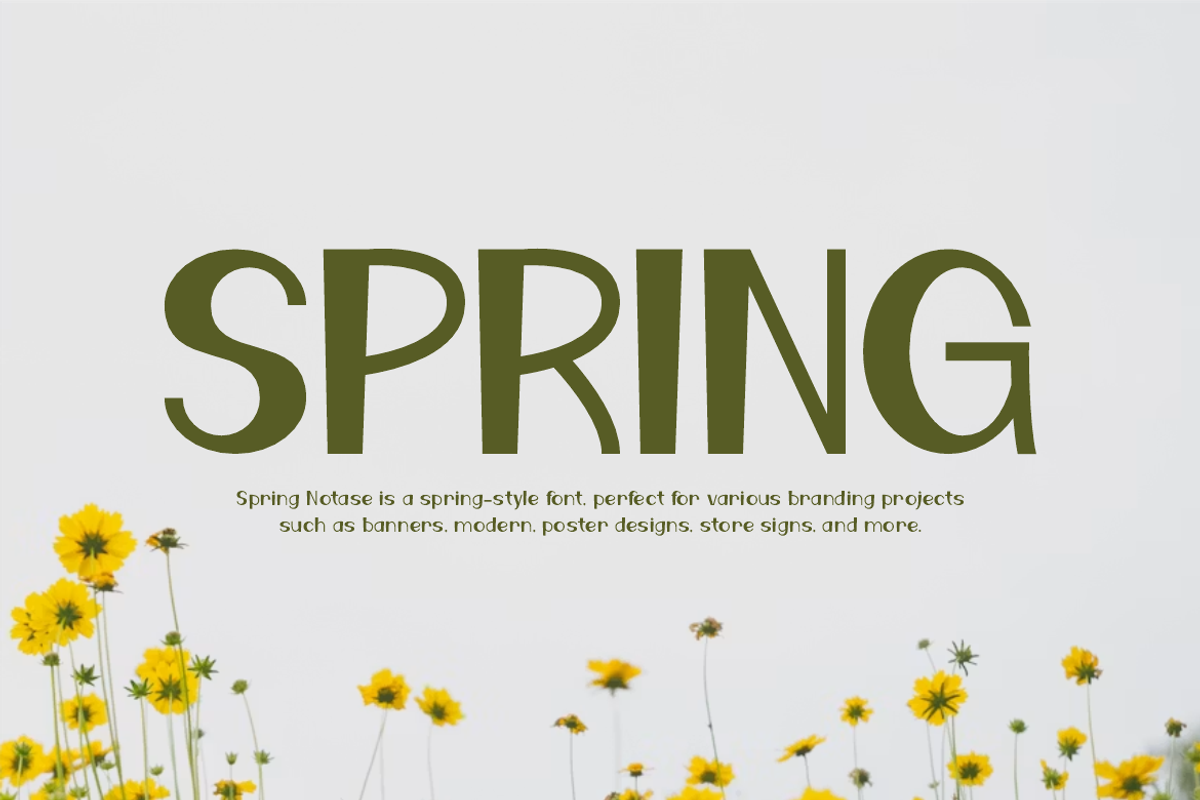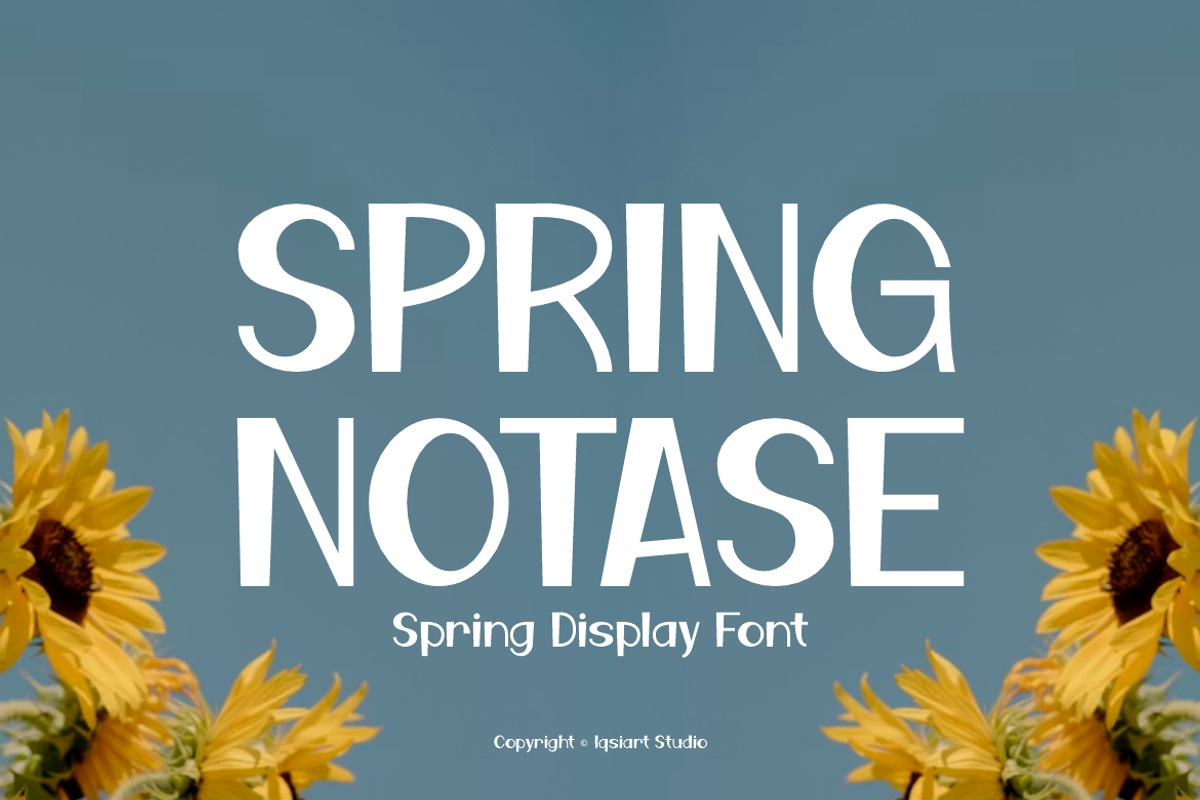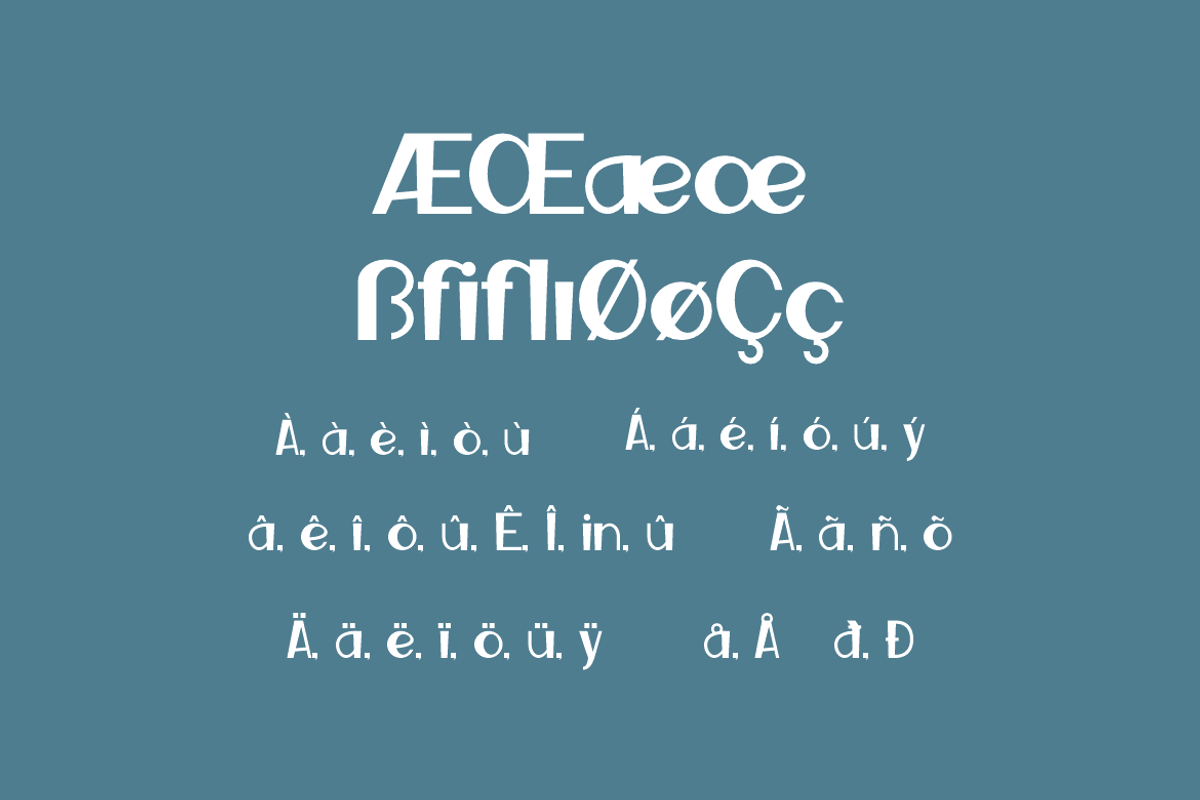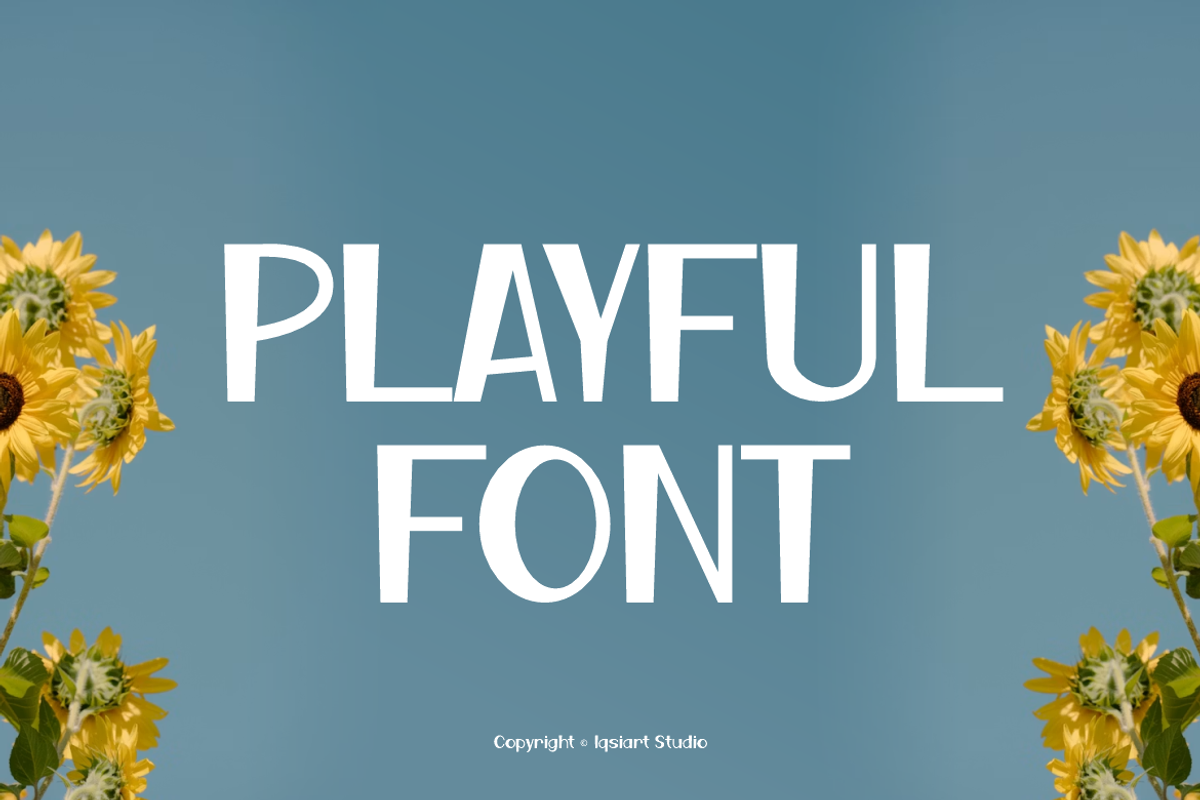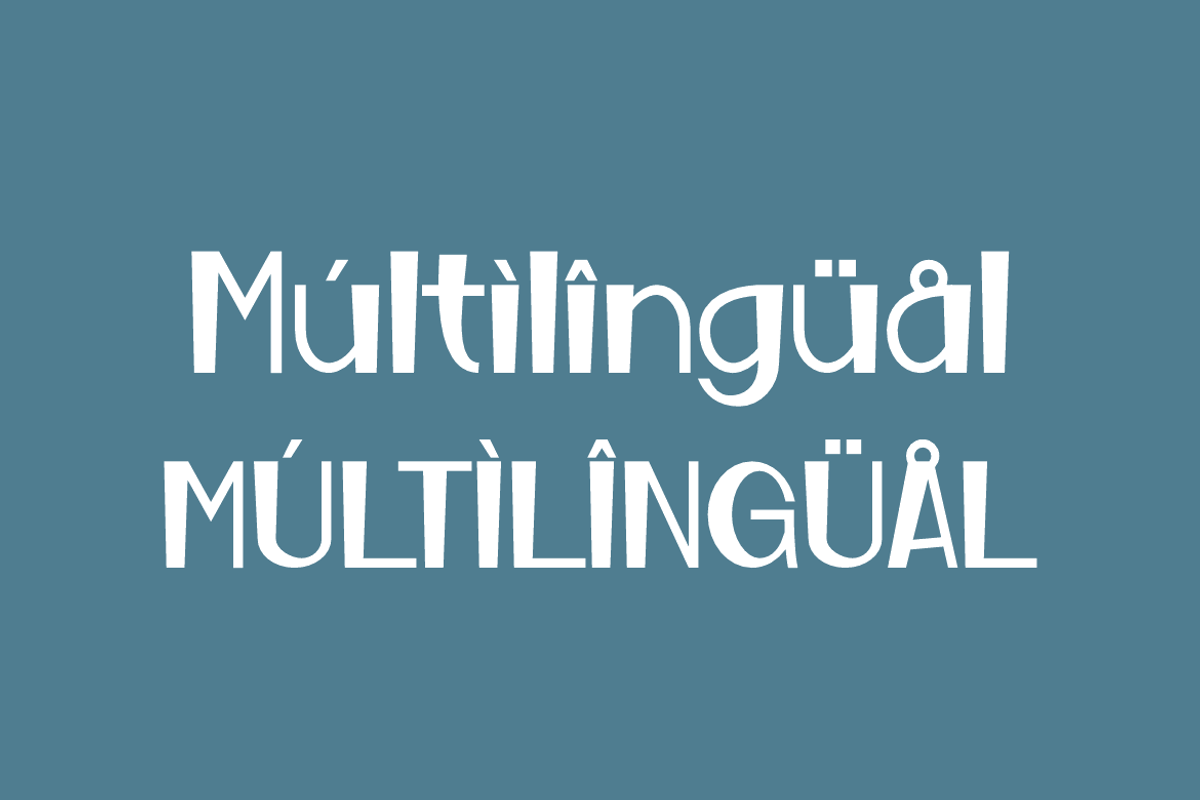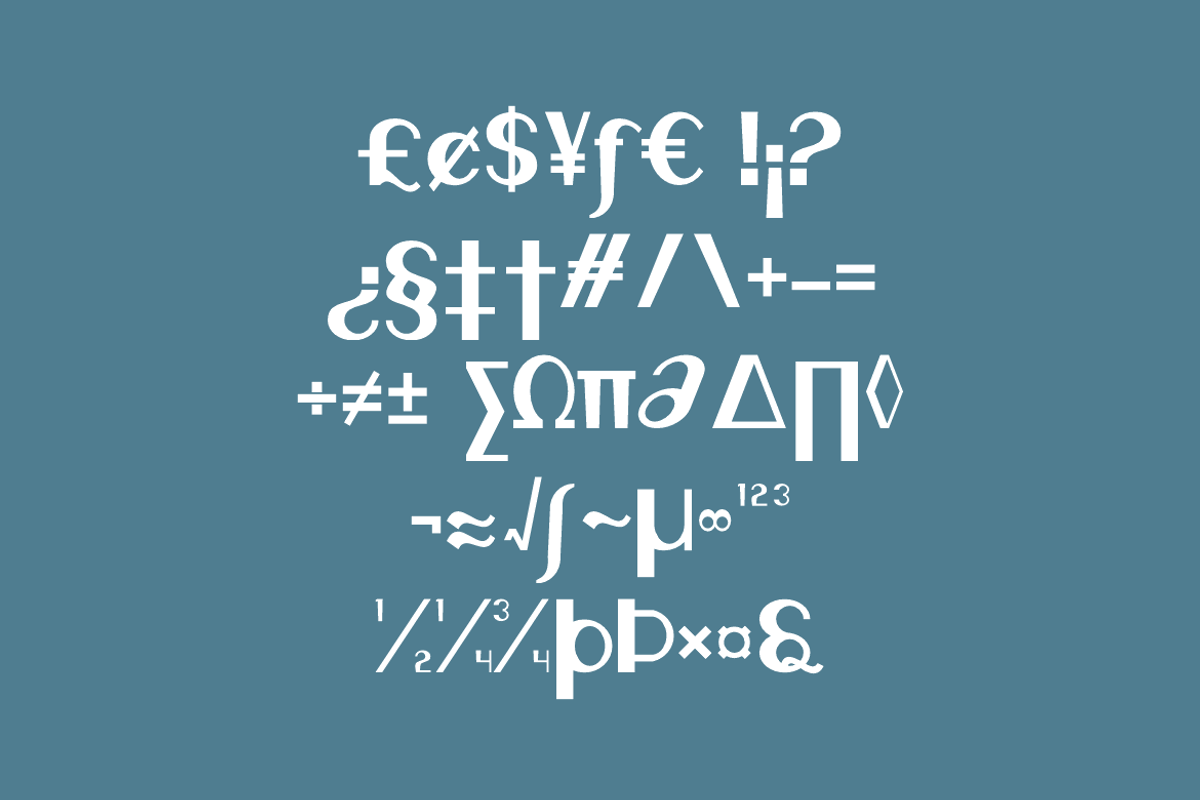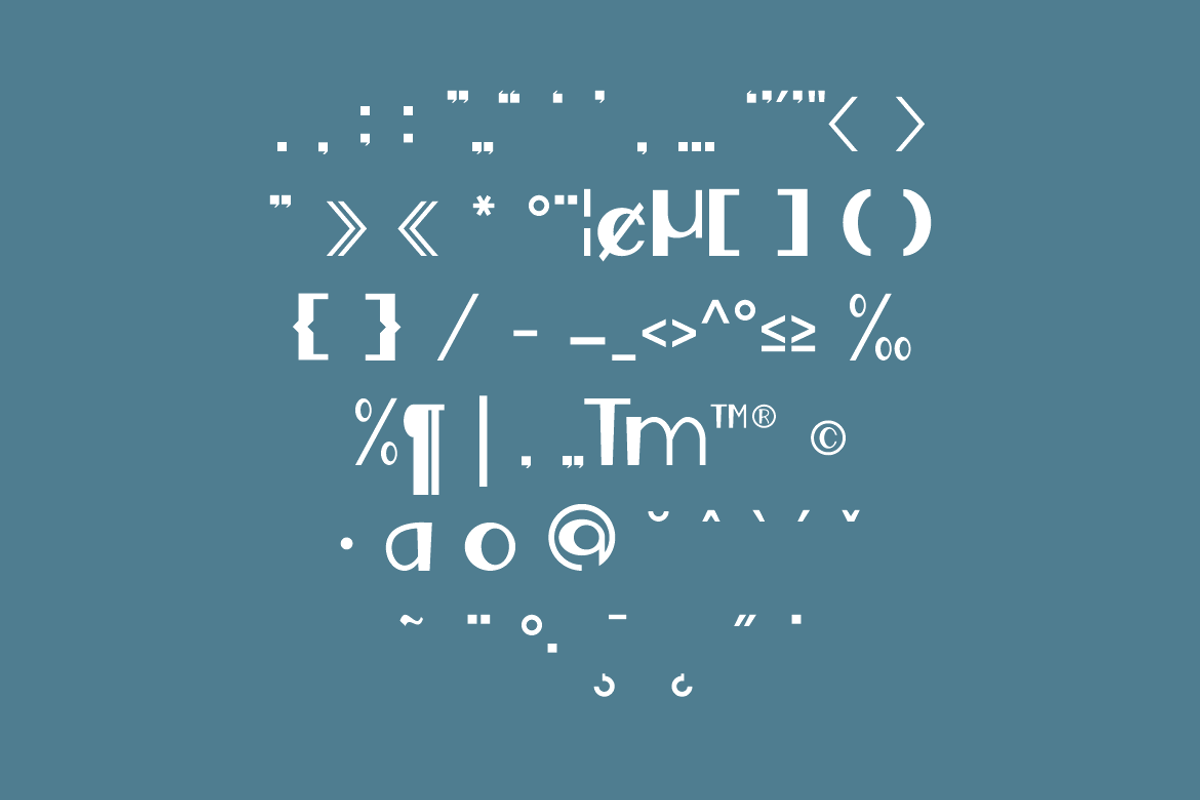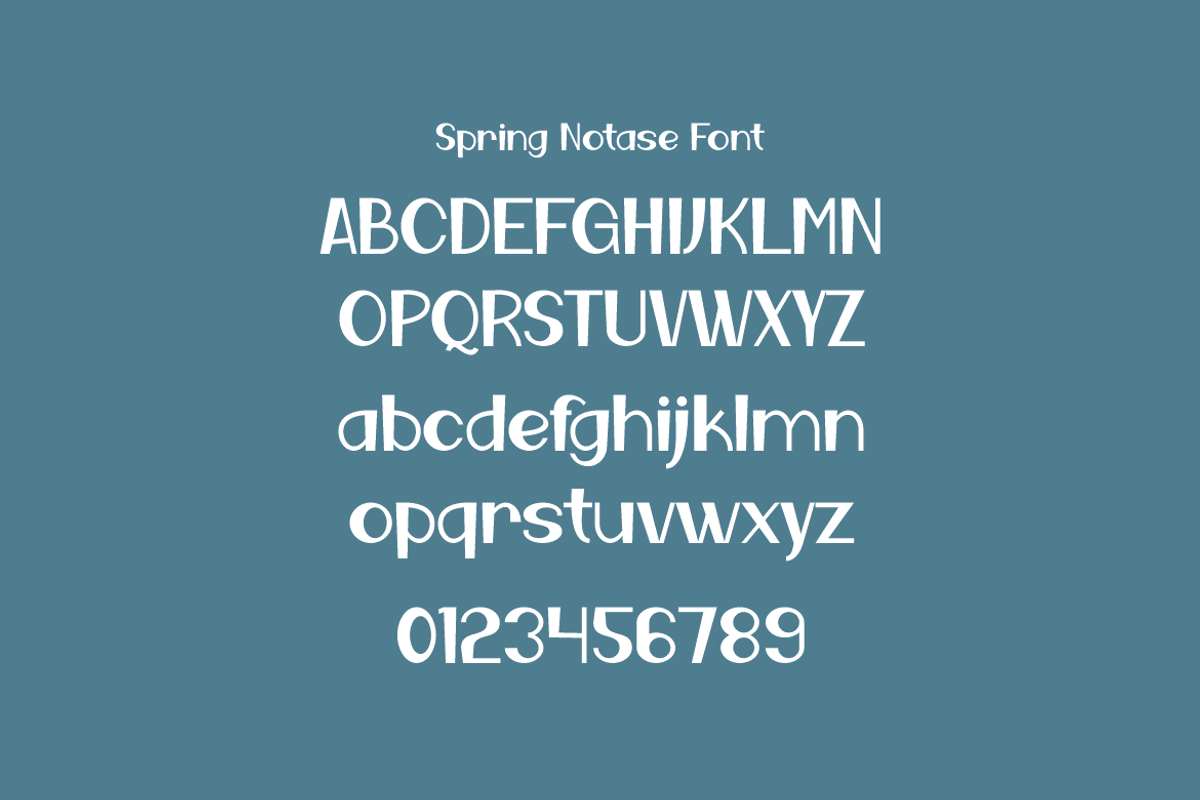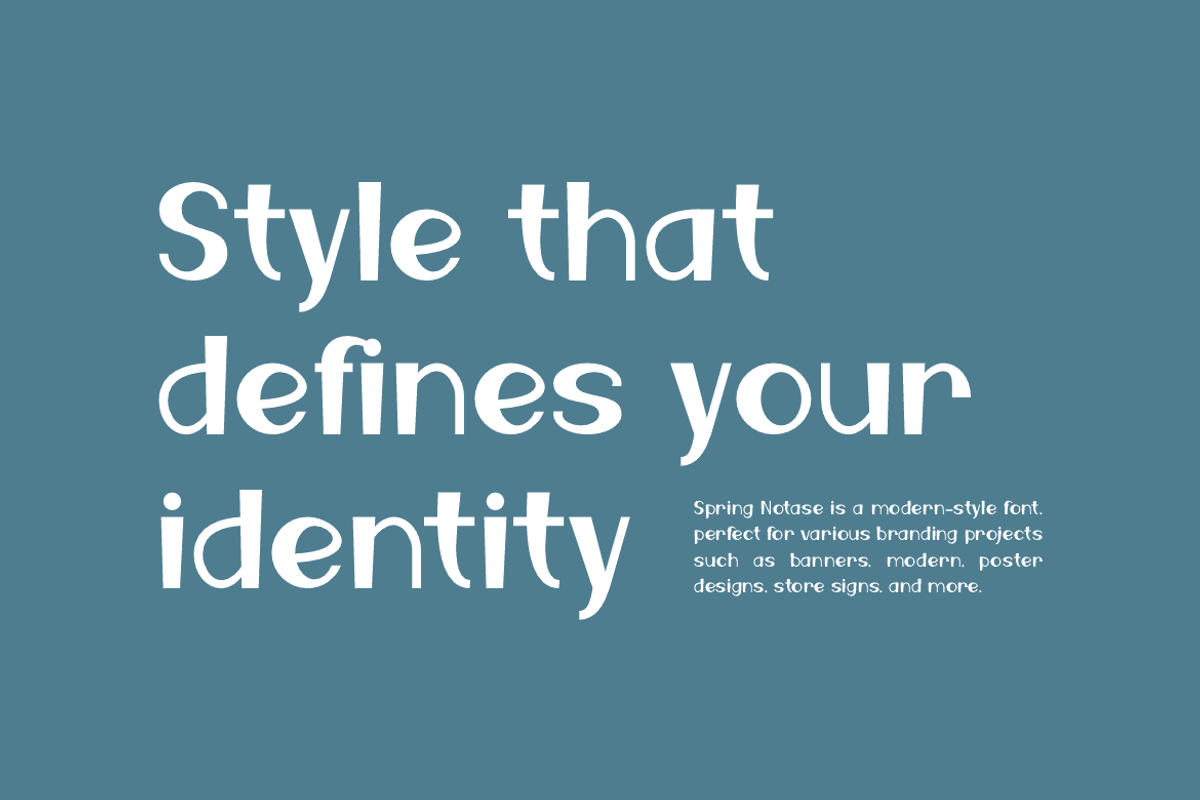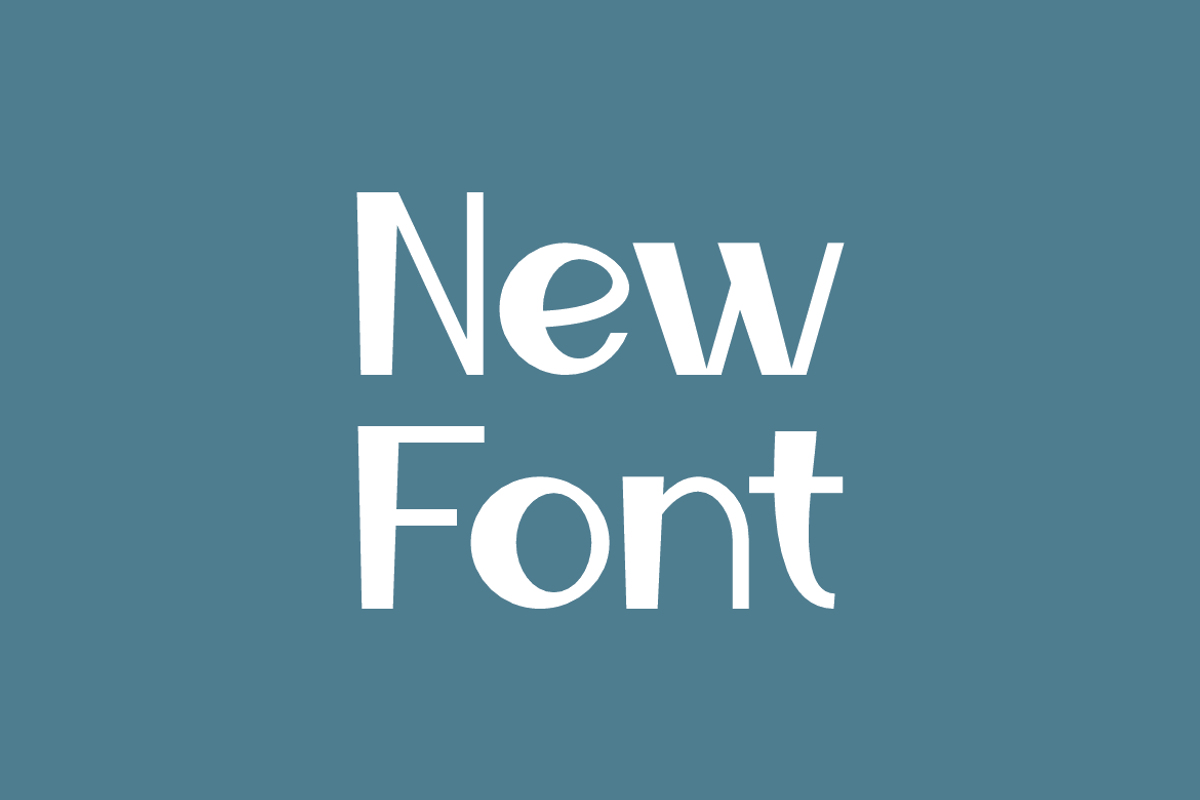
Spring Notase - Display Font
Spring Notase Font is a modern and authentic display typeface
that suits a variety of design needs. We offer a wide range of themes